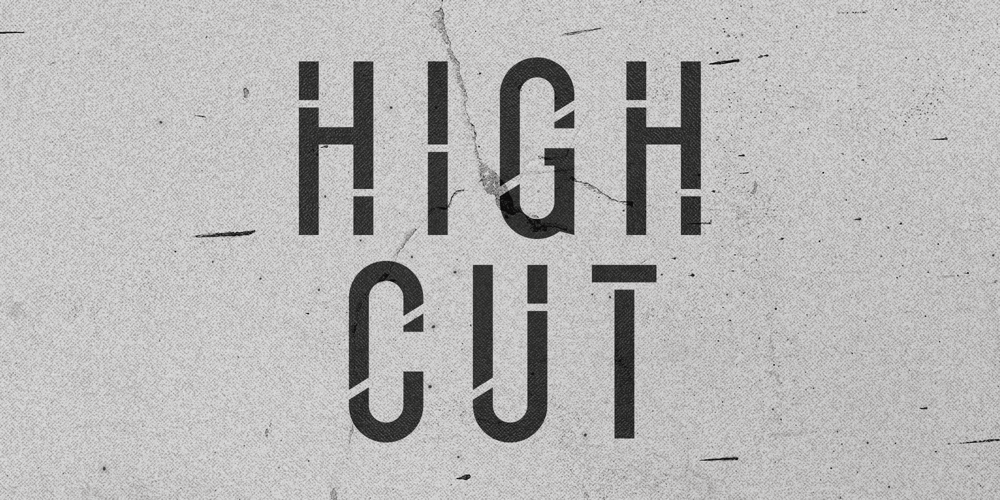
High Cut Font Family was designed by Chad Palmer and published by Palmer Type Company. High Cut contains 1 styles and family package options. High Cut came about by this found object I stumbled upon, while exploring an abandoned building, which had this word “High” cut out of it in a similar stencil design. I thought it would be a fun challenge to create an entire typeface inspired by this found object. Enjoy this new stencil typeface!